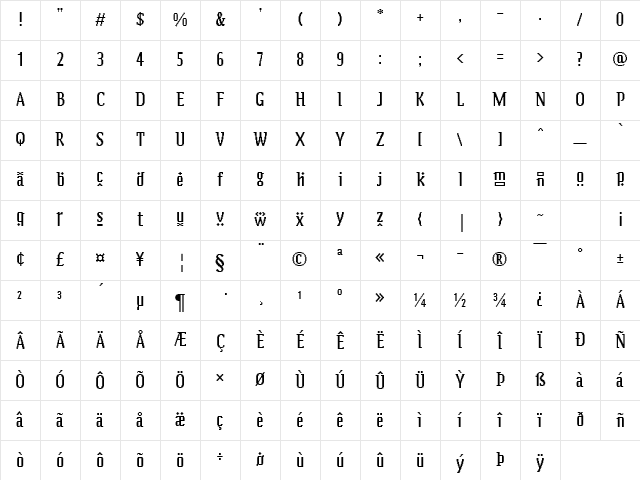
Complete Zeitgeist MT Crazy Paving Regular glyph index. Displaying only characters natively supported by Zeitgeist MT Crazy Paving Regular font.
Zeitgeist MT Crazy Paving is a composed and adaptable typeface that performs quietly and consistently across a wide range of design contexts.